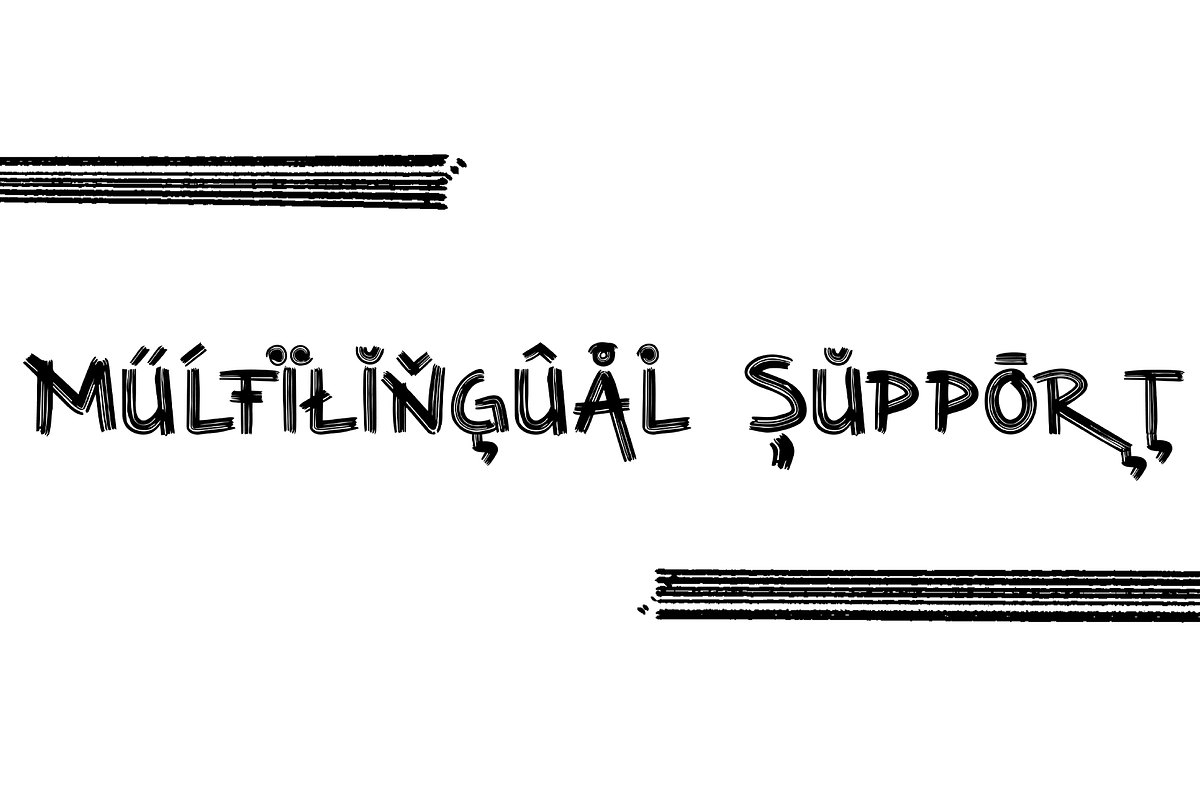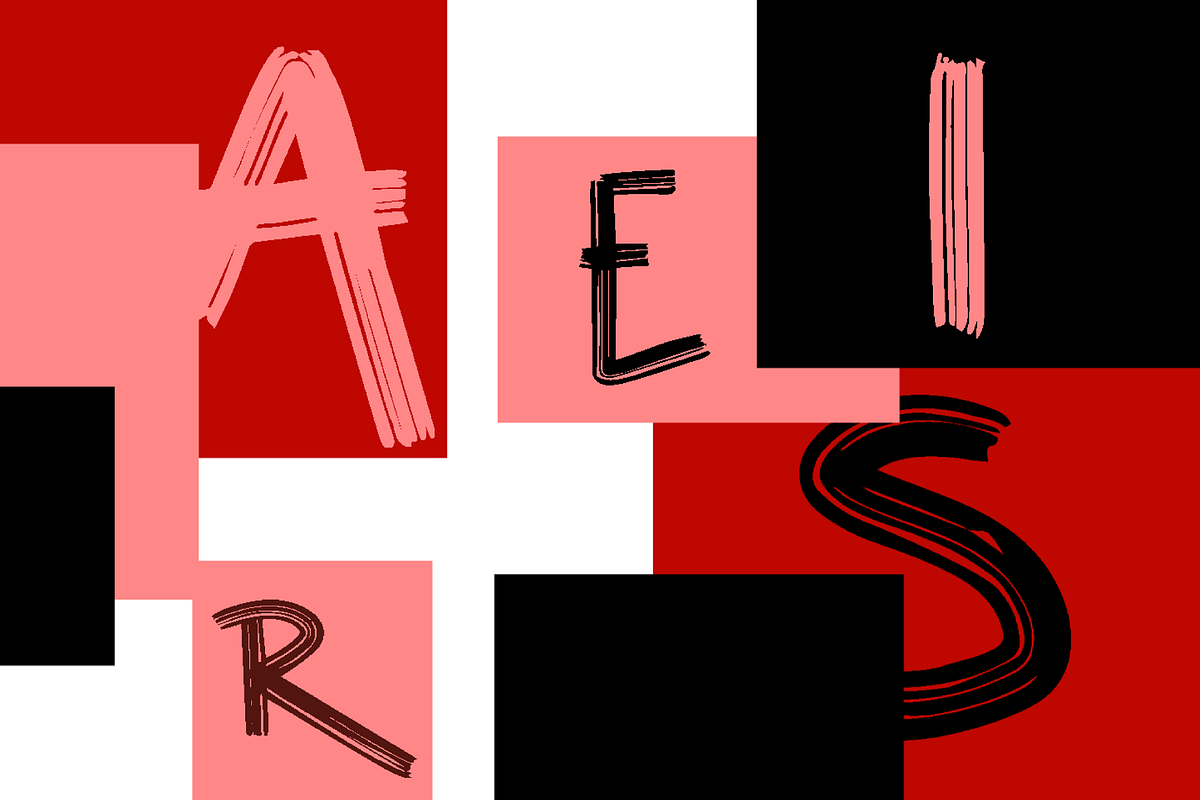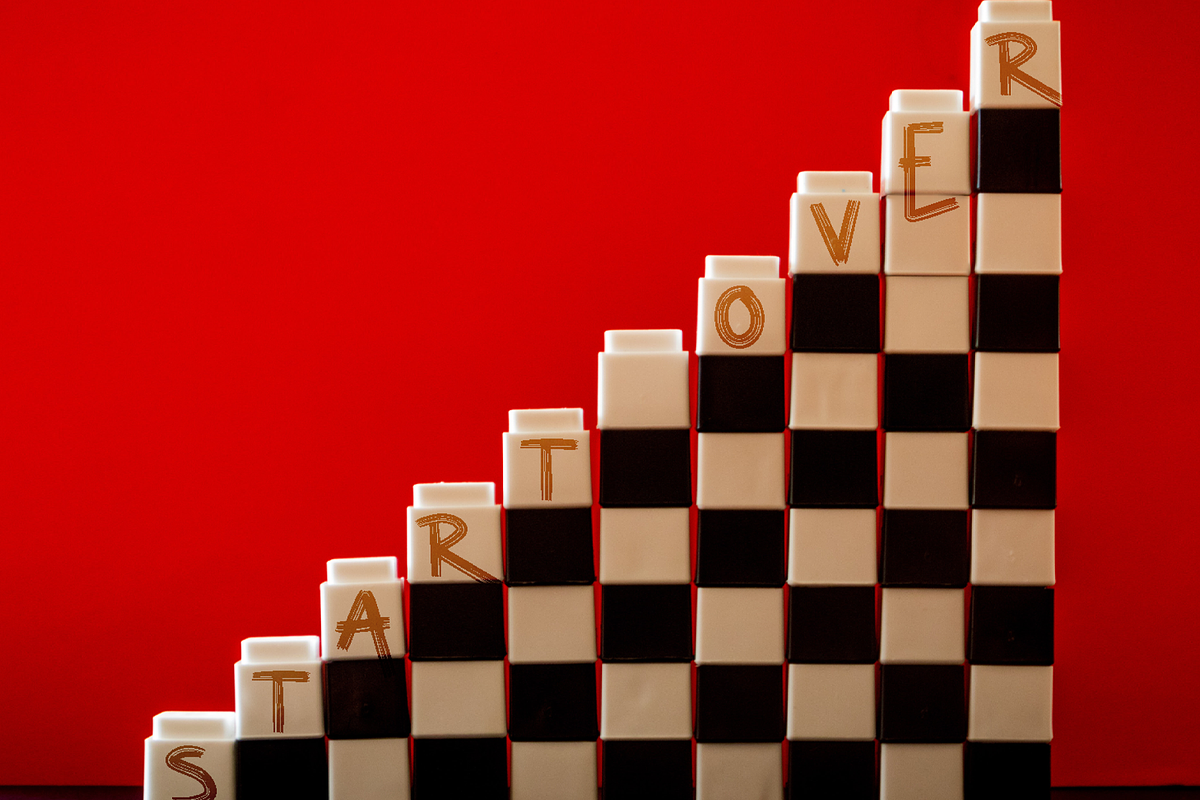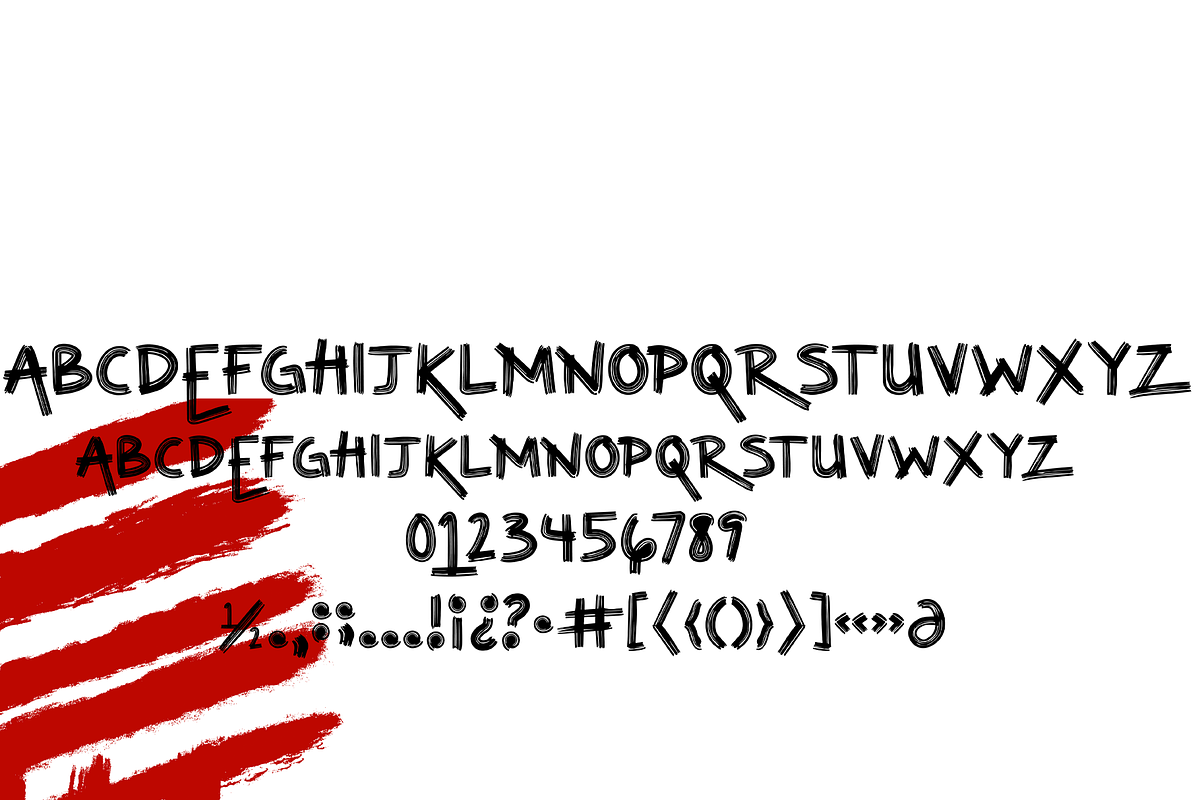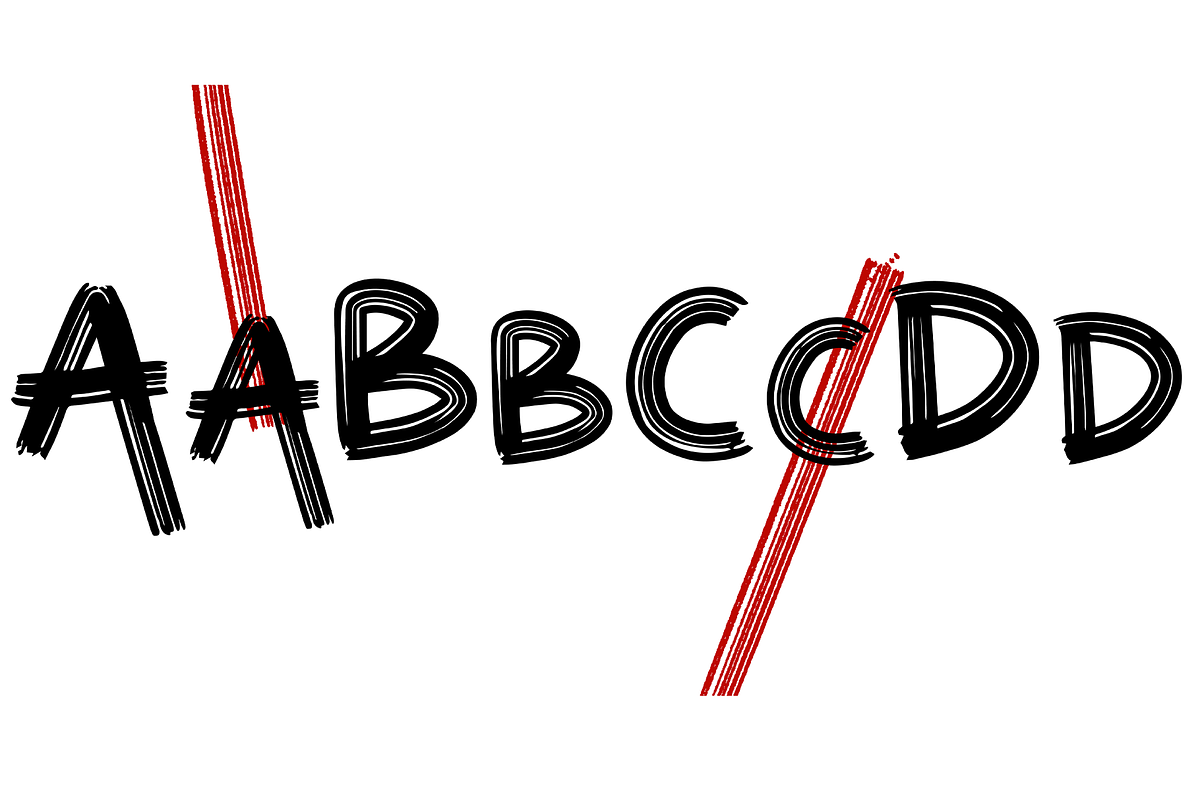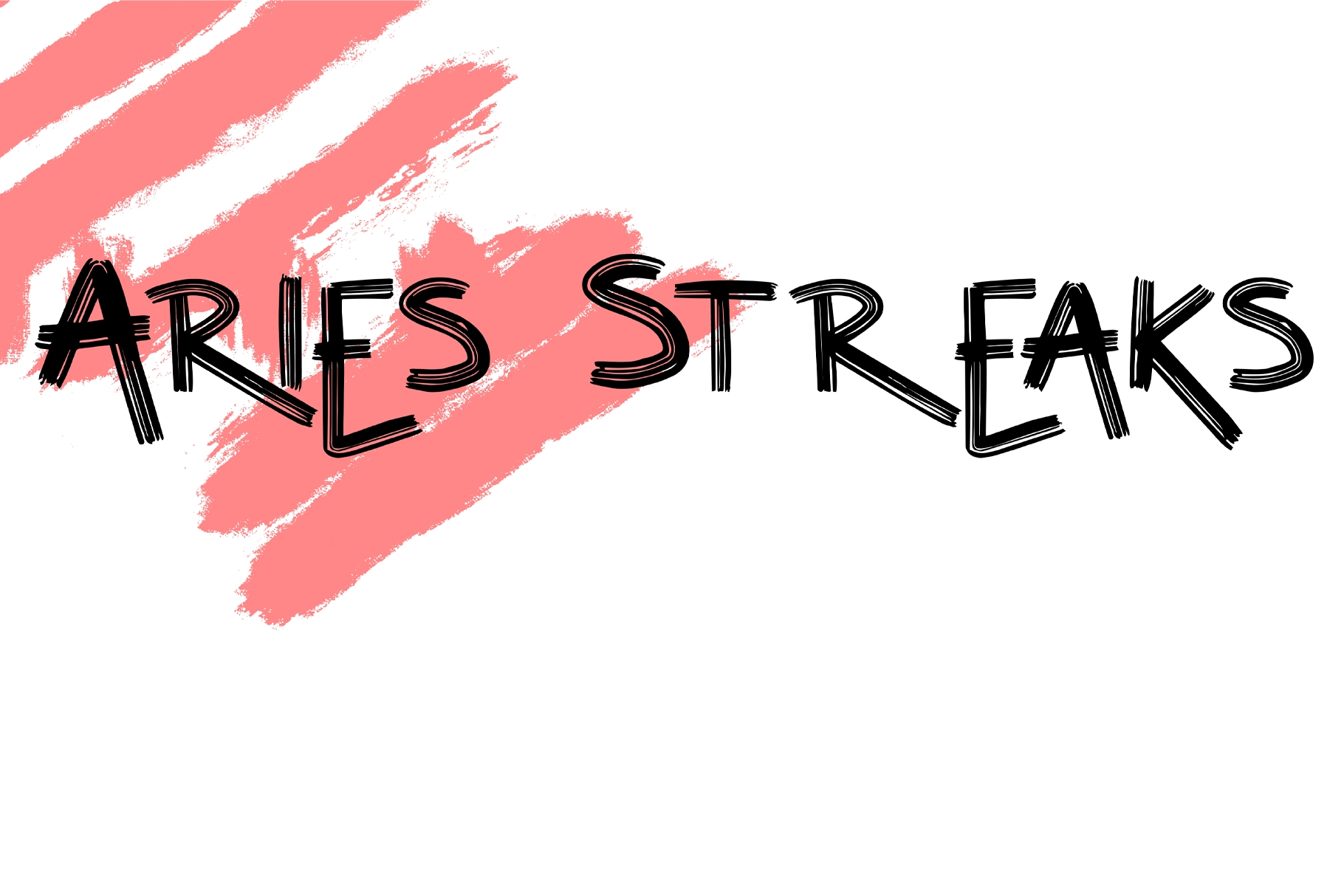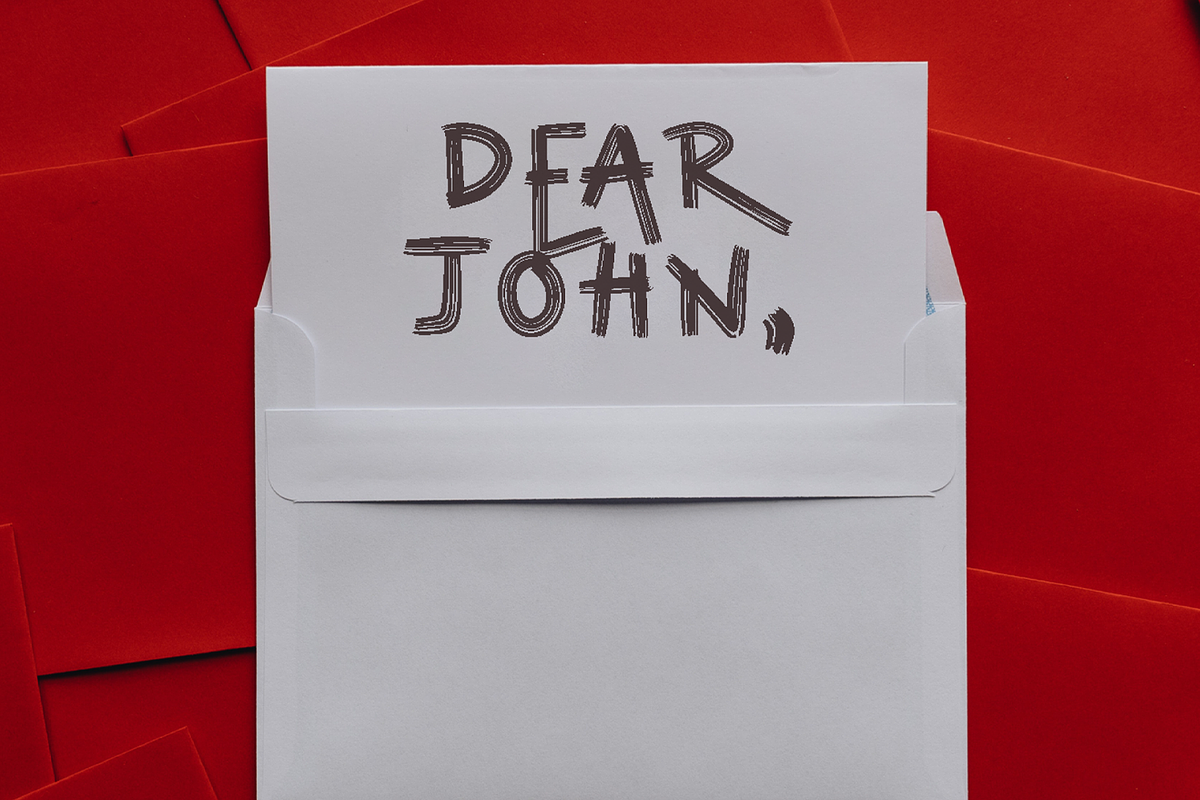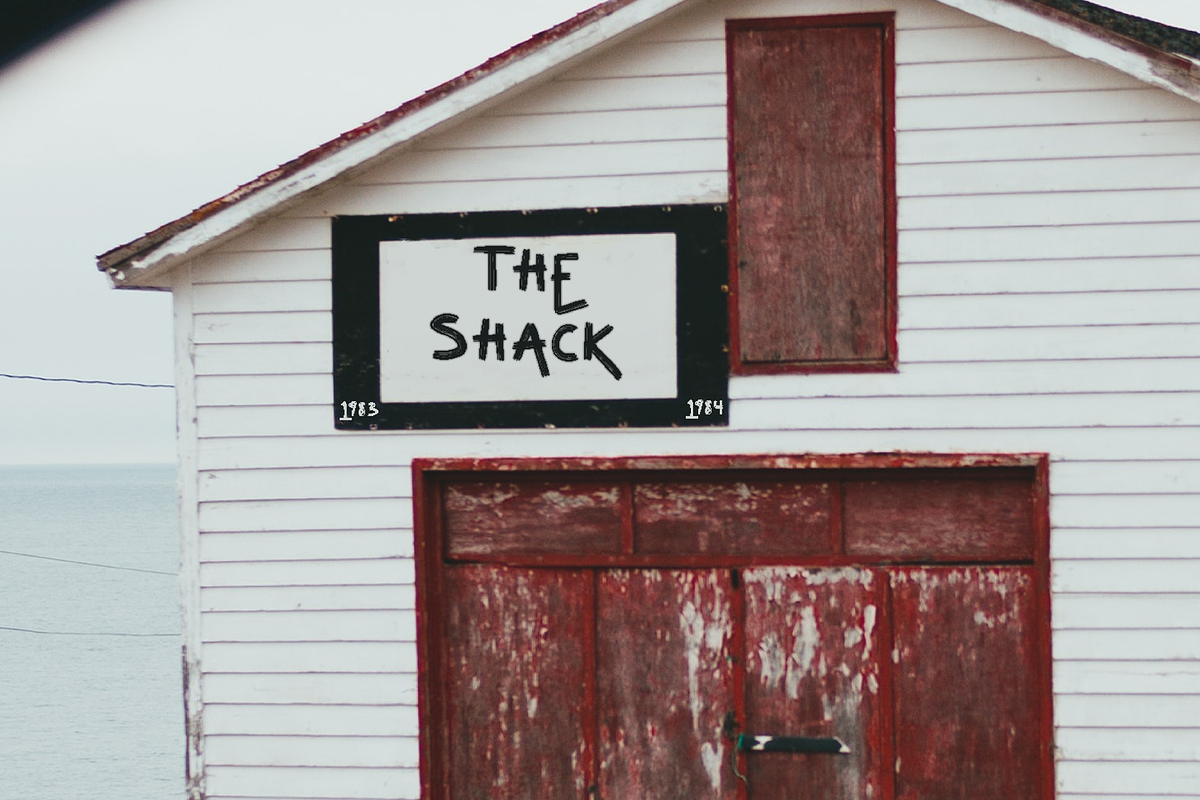
Aries Streaks Typeface
Aries Streaks is the perfect typeface for any project in need of spunk, edge, or youth. It's extremely eccentric while remaining legible, and has both an air of nostalgia and modern style.
Great for use on titles, labels, handwritten projects, and large text projects.
Glyph count: 440 and supports most western languages.
The Aries Streaks Typeface includes
- Aries Streaks Regular
- Aries Streaks Italic